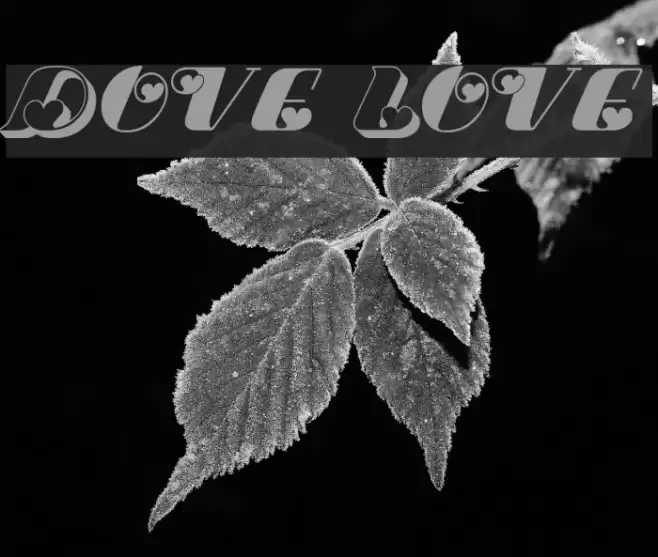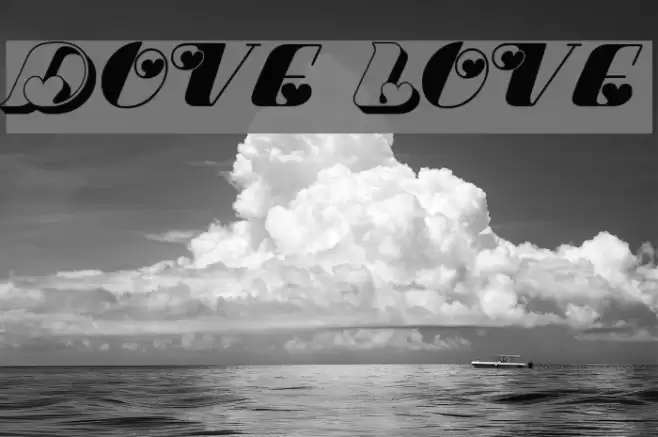
Dove Love Font
Dove Love Description
This font features a unique and playful design with heart-shaped elements integrated into the letterforms, creating a whimsical and romantic aesthetic. The bold and decorative style is characterized by its high contrast between thick and thin strokes, giving it a striking appearance. The uppercase letters are particularly ornate, with each character incorporating a heart motif that adds a touch of elegance and charm. The font maintains a consistent width and spacing, ensuring readability while still offering a distinct visual appeal. Its decorative nature makes it ideal for creative and expressive projects.
A whimsical and romantic font with heart-shaped elements and high contrast strokes from Fancy fonts.
- Proposed Projects: Ideal for wedding invitations, Valentine's Day cards, romantic branding, and decorative headlines.
- Use Case: Headlines, Logos, Invitations